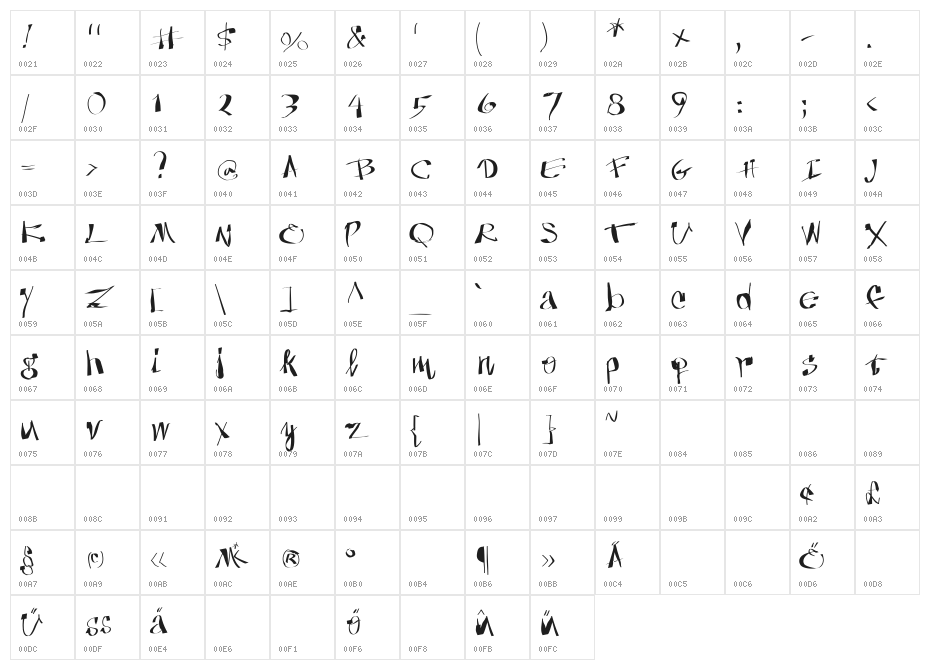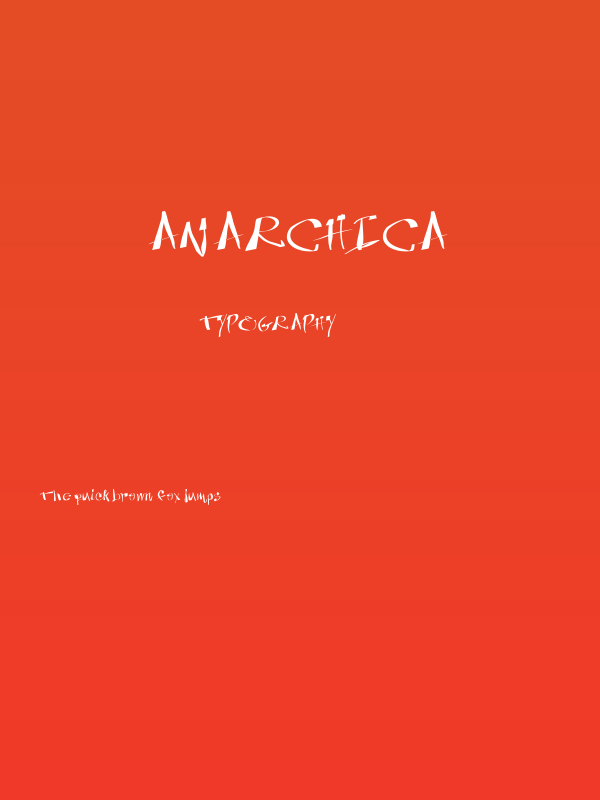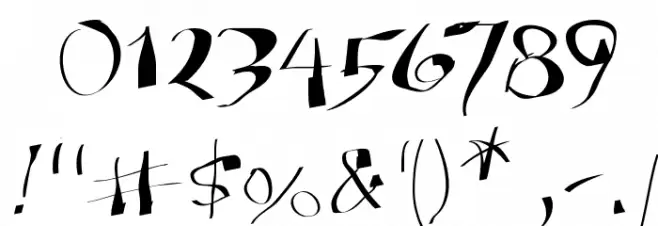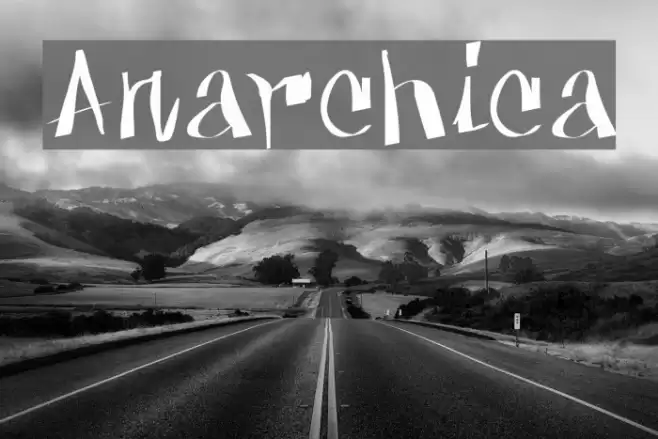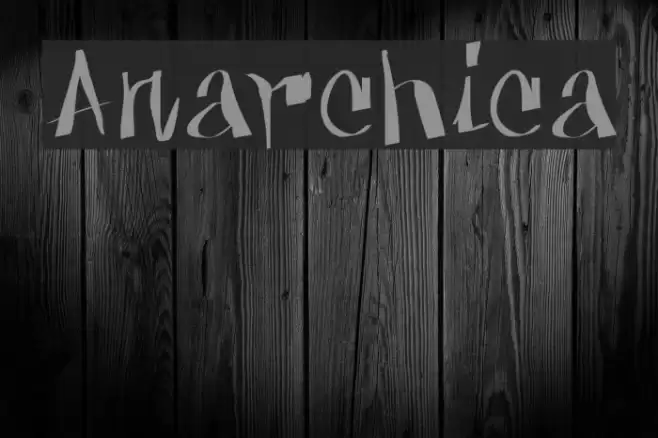
Anarchica Font
Anarchica Description
This font exudes a rebellious and dynamic energy, characterized by its sharp, angular strokes and irregular, hand-drawn appearance. The letters are bold and expressive, with a distinct graffiti-like style that conveys a sense of movement and spontaneity. The uppercase and lowercase letters maintain a consistent style, with exaggerated curves and pointed edges that create a visually striking effect. Numbers and special characters follow the same aesthetic, adding to the font's cohesive look. The overall impression is one of boldness and creativity, making it ideal for projects that require a strong, unconventional visual impact.
| Overall Style | Modern, Edgy |
| Proposed Projects | Ideal for street art designs, music album covers, edgy branding, and posters that require a bold statement. |